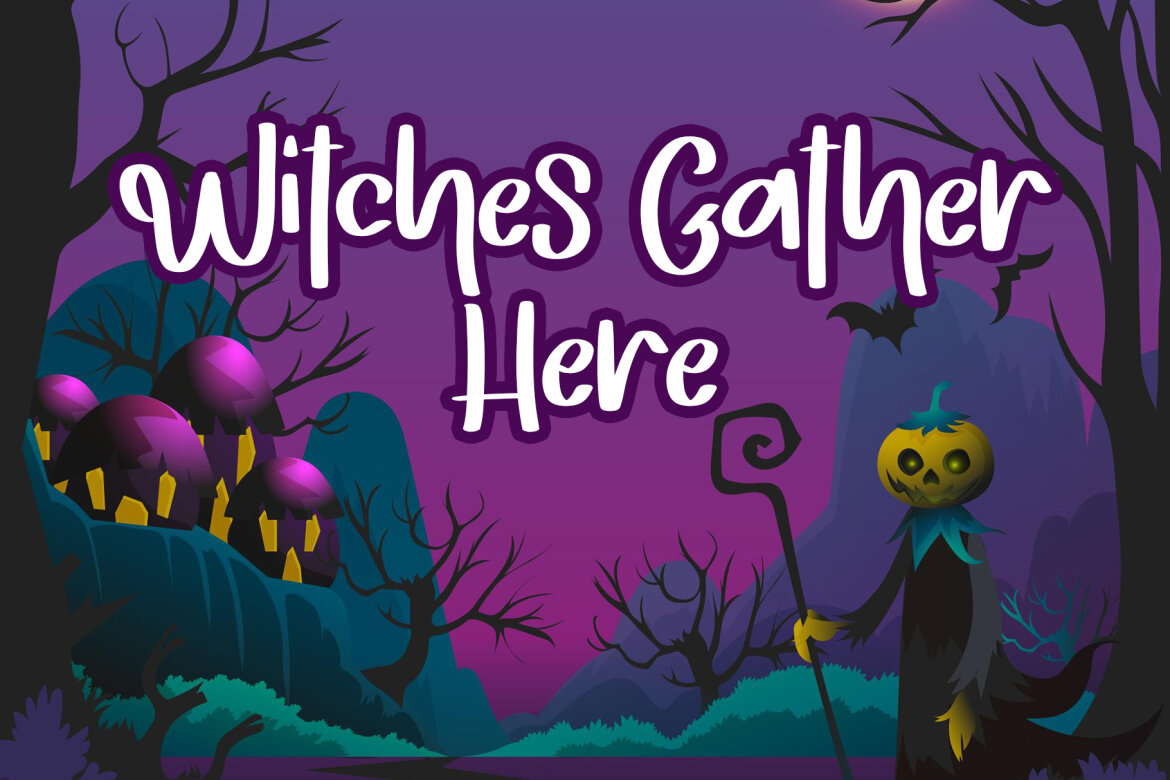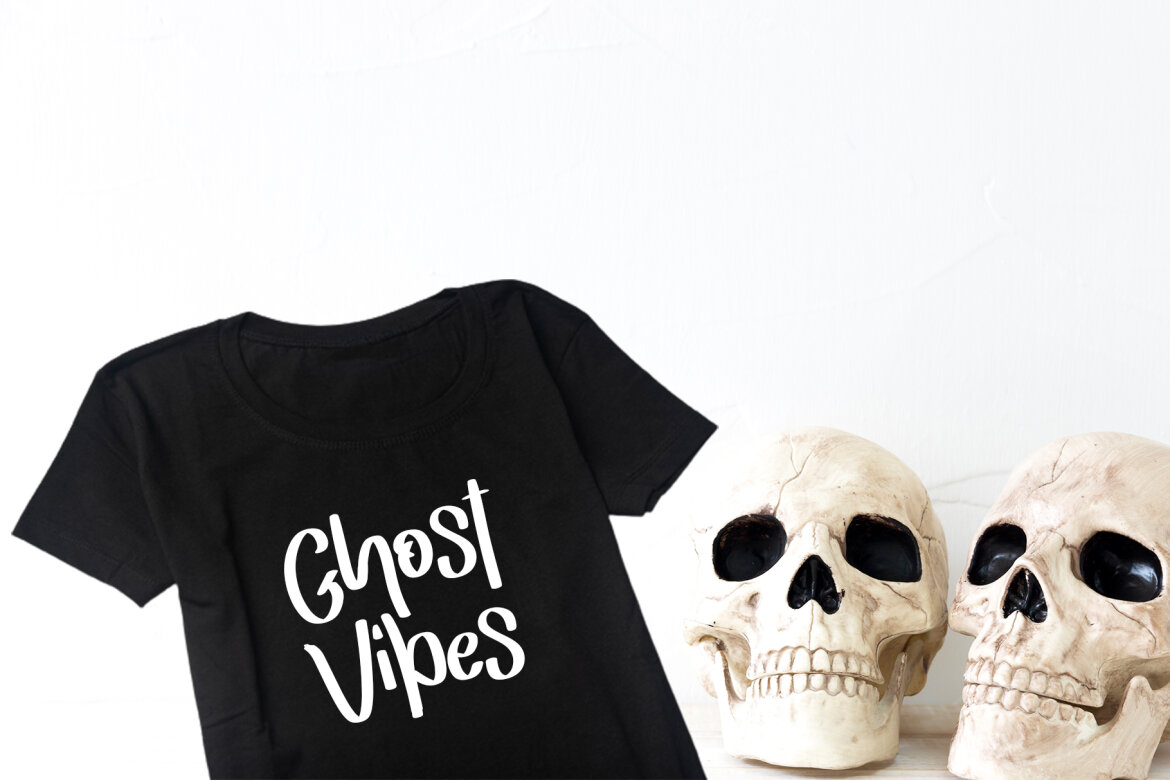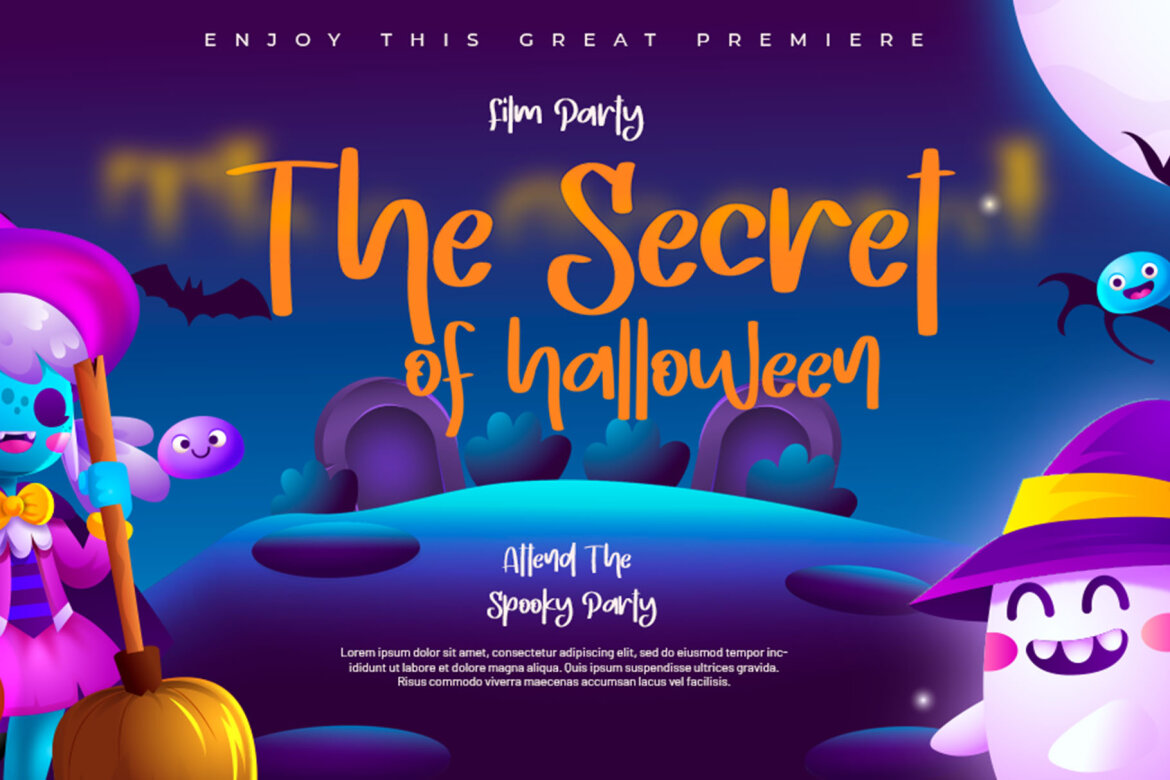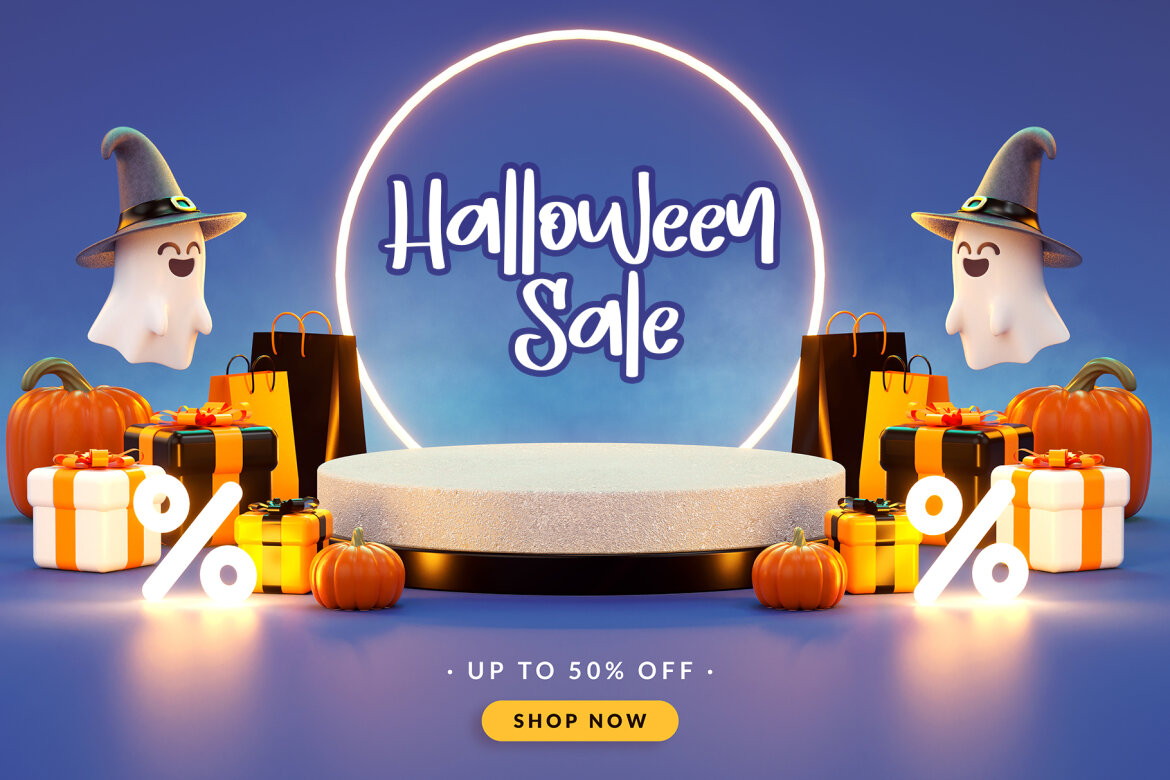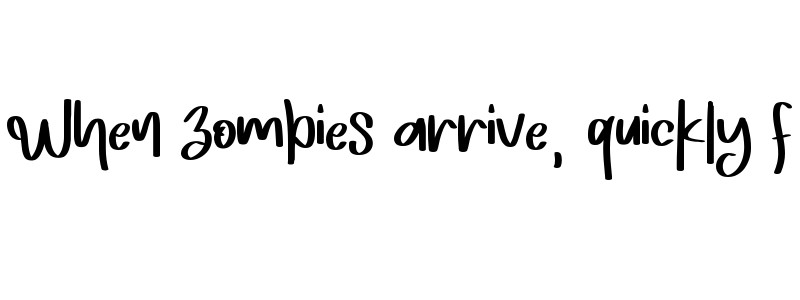
Spooky Riots FREE Font
Spooky Riots is a thick-lettered and spooky display font. It is perfectly suitable for any Halloween-related project or crafty idea! This font is PUA encoded, which means that you can access all of the glyphs with ease!